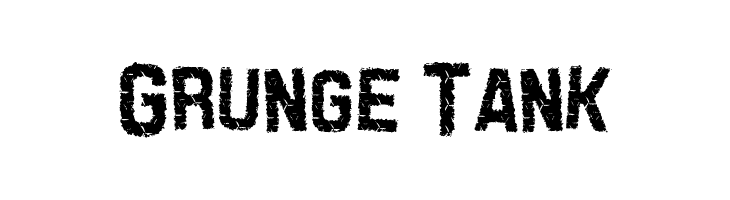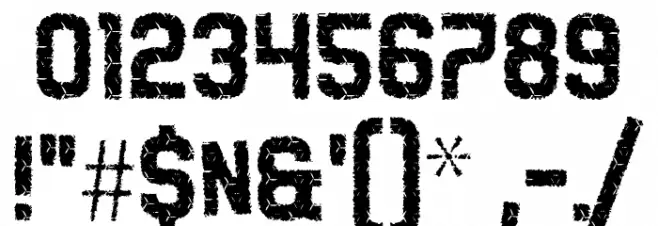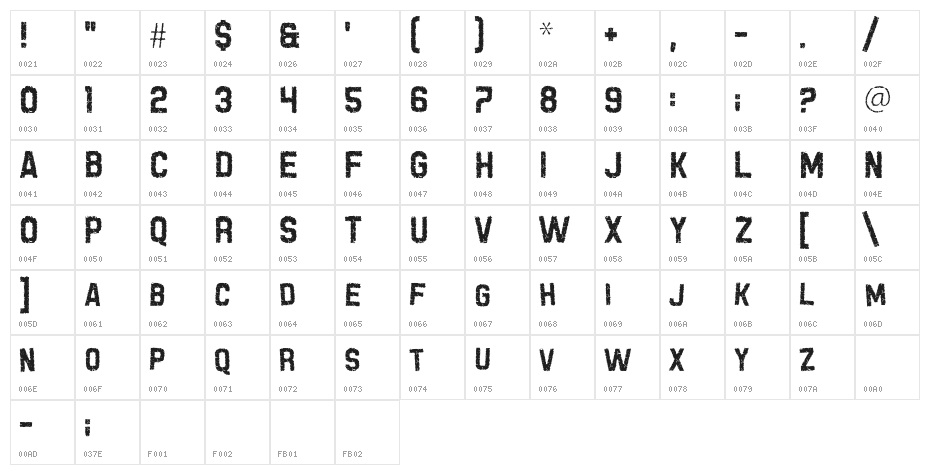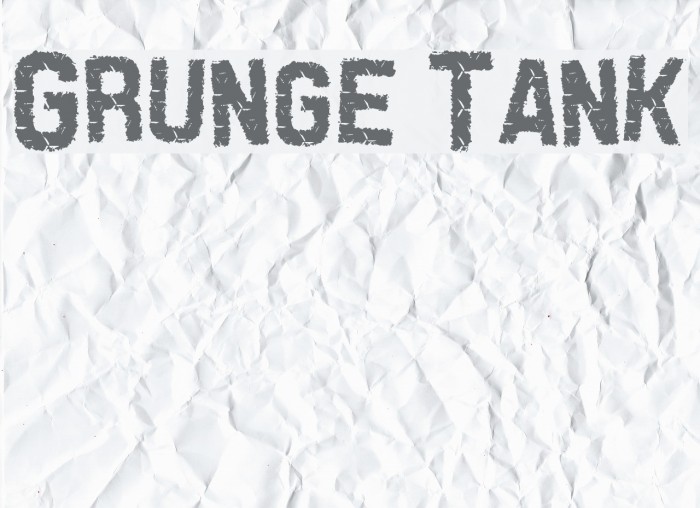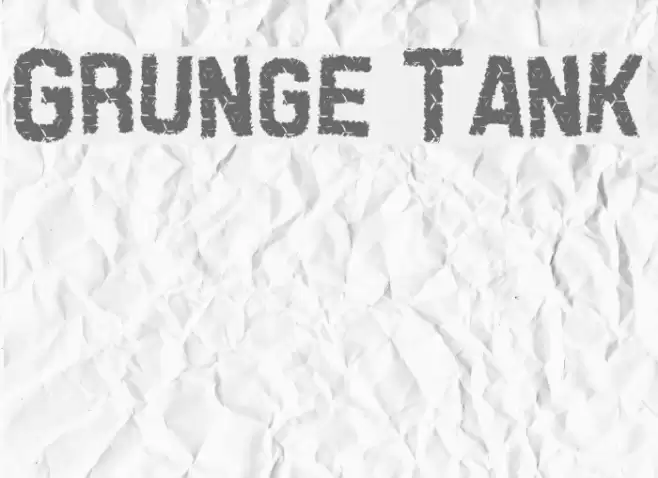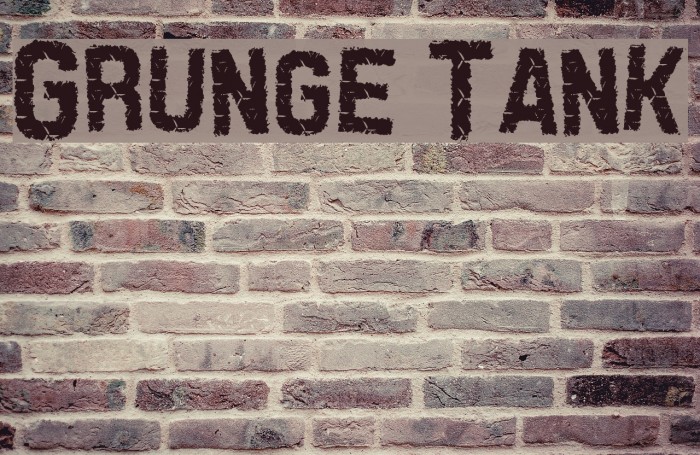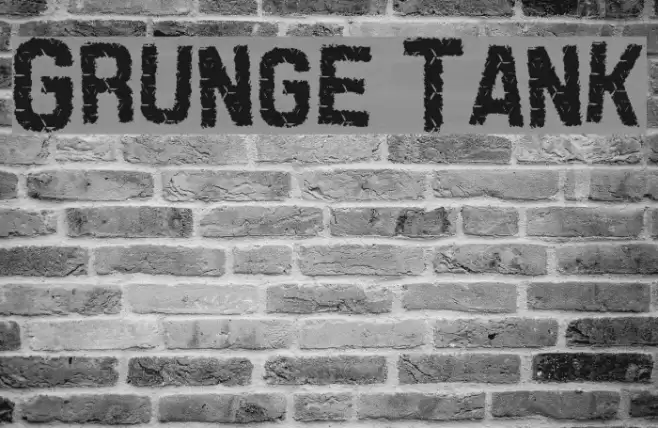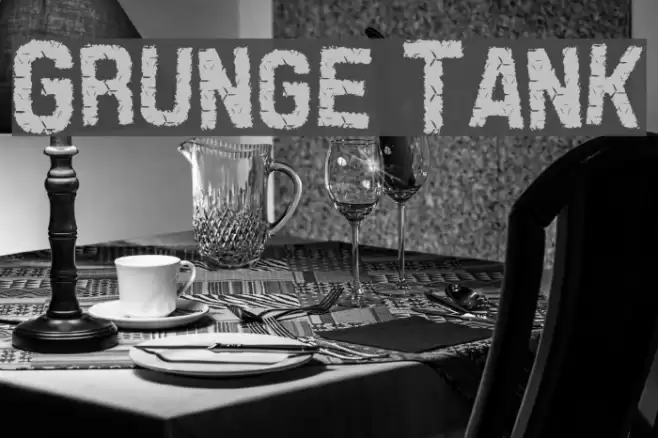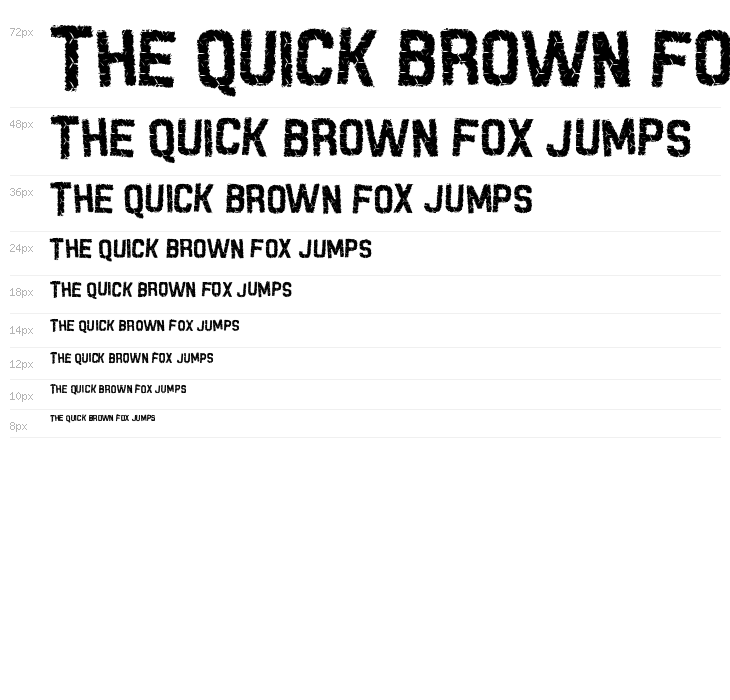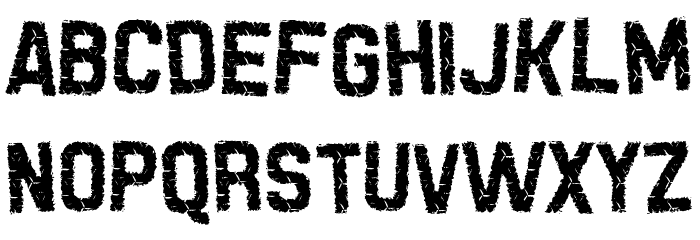
Grunge Tank Font
Grunge Tank Description
This font features a rugged, distressed appearance that mimics the look of worn-out textures, giving it a grunge aesthetic. The characters are bold and impactful, with rough edges and uneven surfaces that create a sense of rawness and authenticity. The uppercase and lowercase letters maintain a consistent style, while the numbers and special characters follow suit, enhancing the overall cohesive look. This font is ideal for projects that require a bold statement or an edgy, urban feel. Its unique texture makes it stand out, capturing attention with its gritty and rebellious vibe.
| Overall Style | Grunge, Urban, Edgy |
| Proposed Projects | Perfect for album covers, posters, streetwear branding, and edgy graphic designs. |